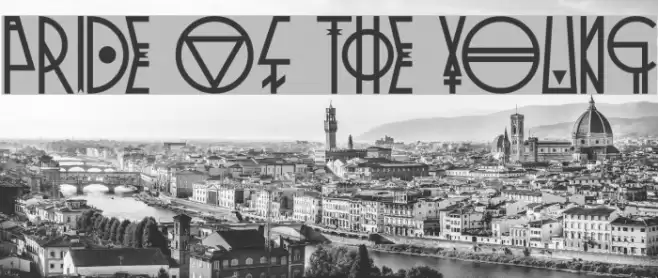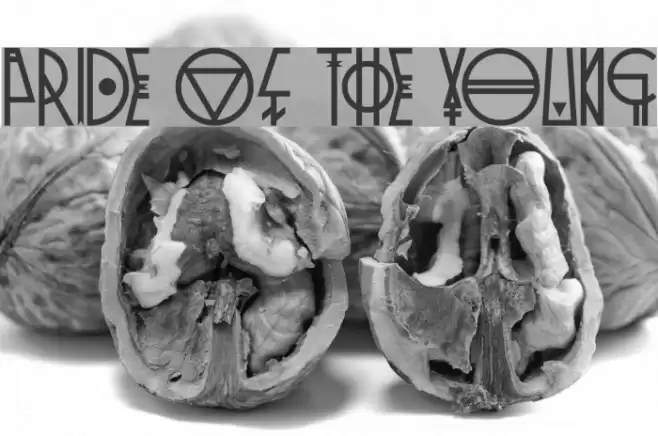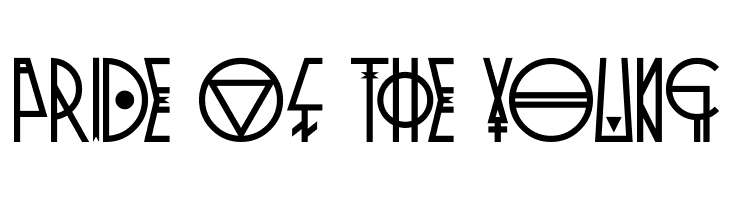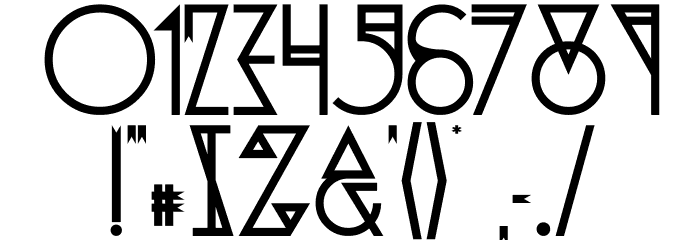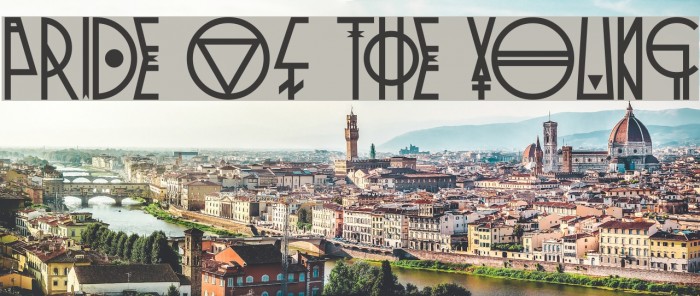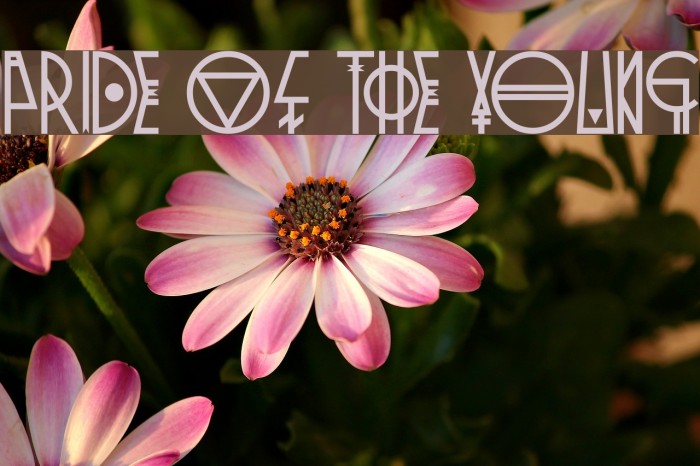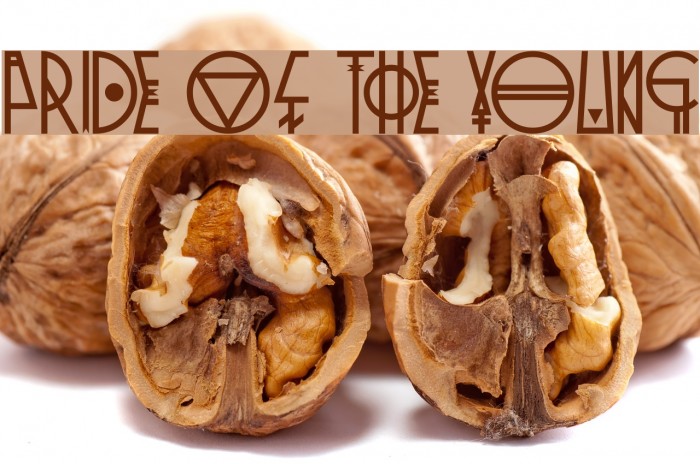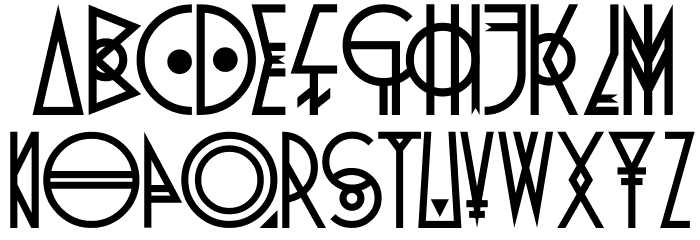
Pride Of The Young Font
Pride Of The Young Description
This font features a highly decorative and geometric style, with bold, angular lines and unique shapes that create a futuristic and avant-garde appearance. Each character is crafted with a mix of sharp edges and circular forms, giving it a distinctive and artistic look. The uppercase and lowercase letters maintain a consistent design theme, while the numbers and special characters complement the overall aesthetic. This font's intricate design makes it stand out, ideal for creative and eye-catching projects.
A bold, geometric, and decorative font with a futuristic style from Decorative fonts.
- Proposed Projects: Ideal for album covers, posters, branding for tech companies, or any project needing a modern and artistic touch.
- Overall Style: Futuristic, Avant-Garde